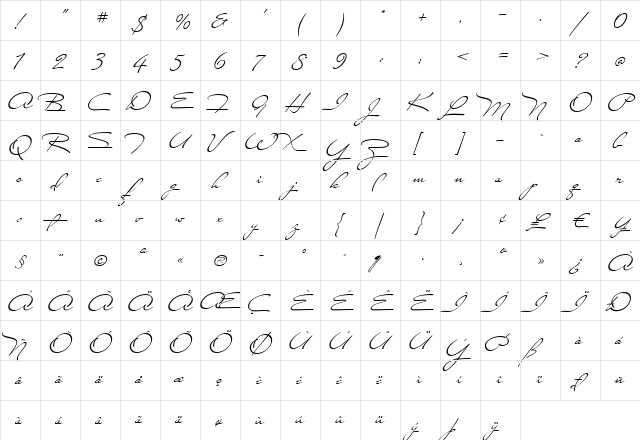
Miss Stanfort Regular
Design Context for Miss Stanfort Typeface
Miss Stanfort is a composed and adaptable typeface that performs quietly and consistently across a wide range of design contexts.